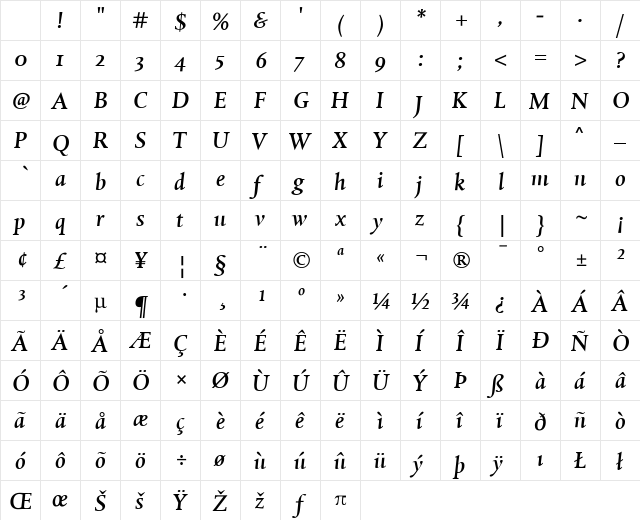
Complete DTLAlbertinaST ItalicMedium glyph index. Displaying only characters natively supported by DTLAlbertinaST ItalicMedium font.
DTLAlbertinaST is a composed and adaptable typeface that performs quietly and consistently across a wide range of design contexts. The slanted form adds forward momentum and visual energy.